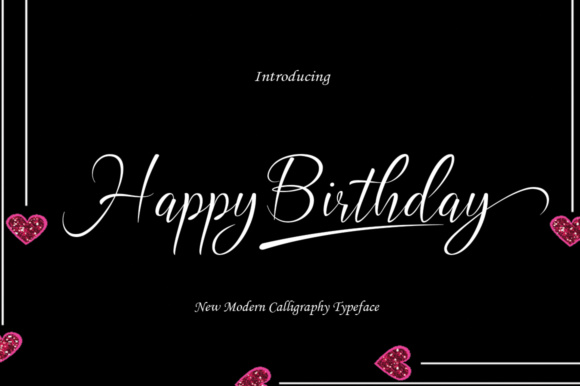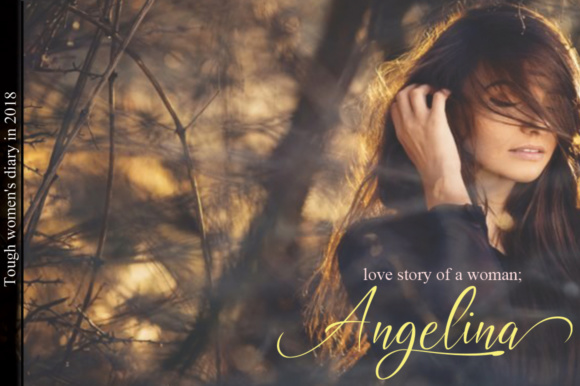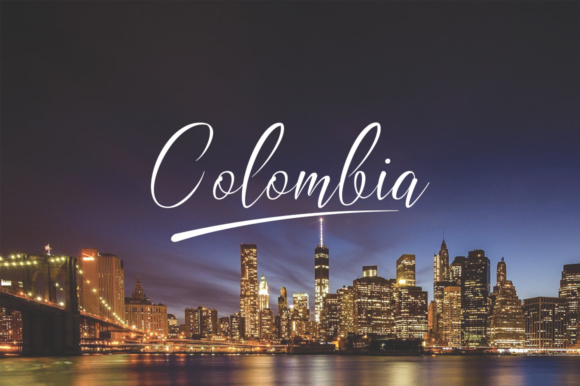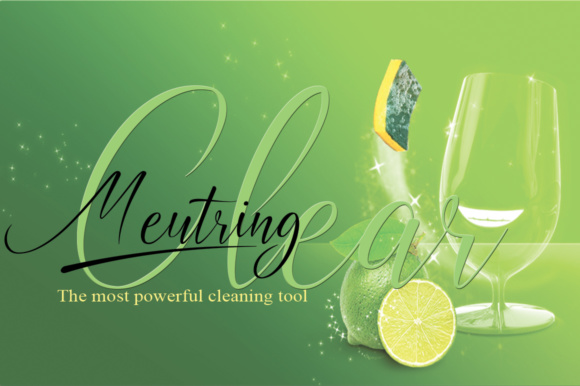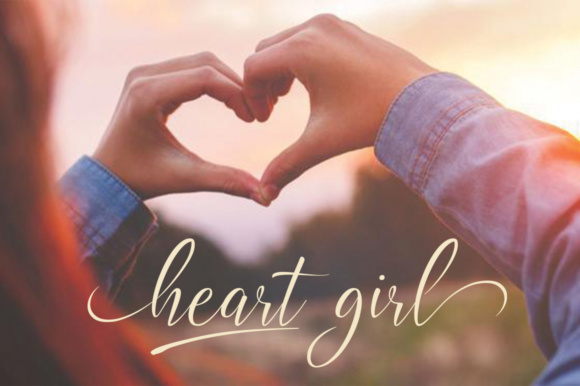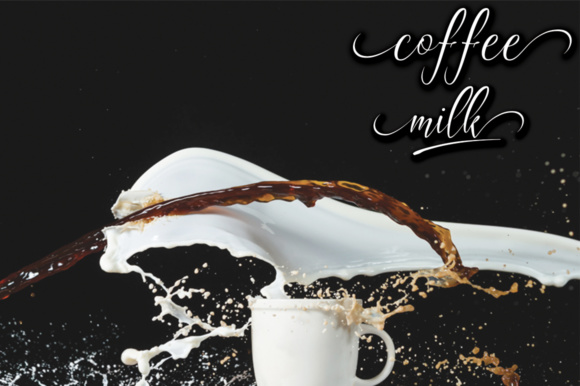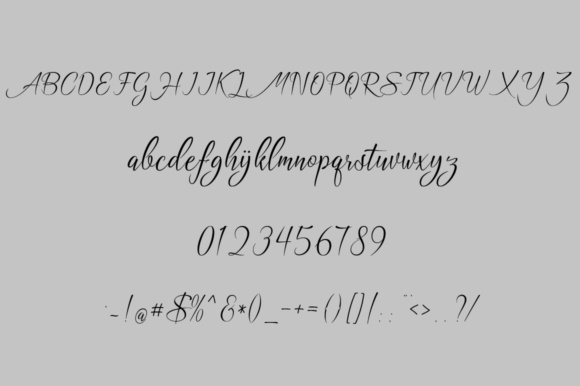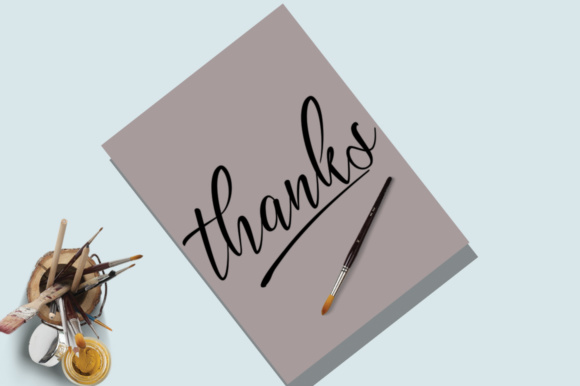
HomeScript FontsHappy Birthday Font Script Fonts Happy Birthday Font FacebookXPinterestWhatsApp Happy Birthday Font Poster 2 Happy Birthday Font Poster 3 Happy Birthday Font Poster 4 Happy Birthday Font Poster 5 Happy Birthday Font Poster 6 Happy Birthday Font Poster 7 Happy Birthday Font Poster 8 About Happy Birthday Font Happy Birthday is a modern calligraphy font. It has a modern and unique feel and a natural writing style. DOWNLOAD NOW People also explored Gianna Font Keith Gordon Font Creative Lovely Font Getih West Font Nature Font Bohabey Font Blackstar Font Roslyn Aaliyah Font Be Patient Font 267 0 TagsHappy Birthday Font Previous articleBarracuda Script FontNext articleRoche Script Font LEAVE A REPLY Cancel reply Comment: Please enter your comment! Name:* Please enter your name here Email:* You have entered an incorrect email address! Please enter your email address here Website: Save my name, email, and website in this browser for the next time I comment. Personal Use Free Sunbright Font Personal Use Free Read more about this font Cosmos Personal Use Free Read more about this font Oaklevin Personal Use Free Read more about this font Vivacious Personal Use Free Read more about this font BLOG Where to Buy American Fonts Online in 2024 Where to Buy American Fonts Online: The Ultimate Guide for 2024 Looking for the perfect American font to elevate your design projects? You're in the... 5 Fonts That Will Dominate Design Trends in 2026 How to Install and Use Fonts on Windows, macOS, and Web Projects Fonts That Capture the Spirit of New York City